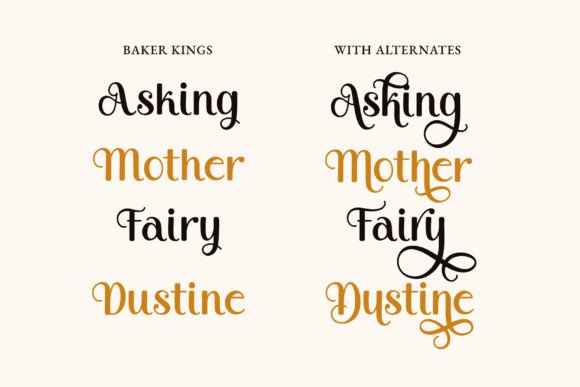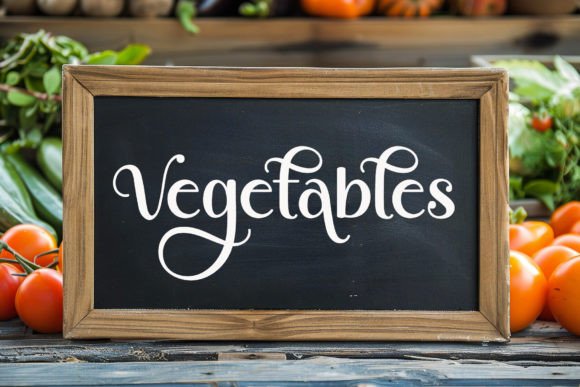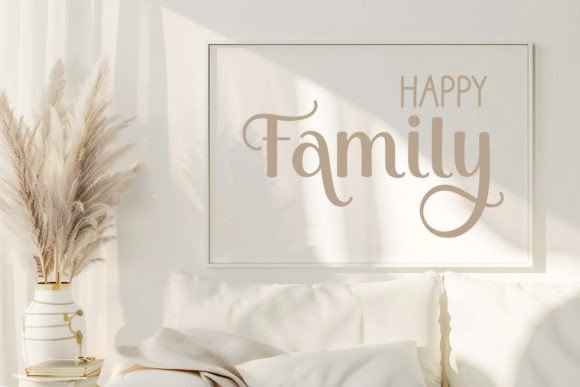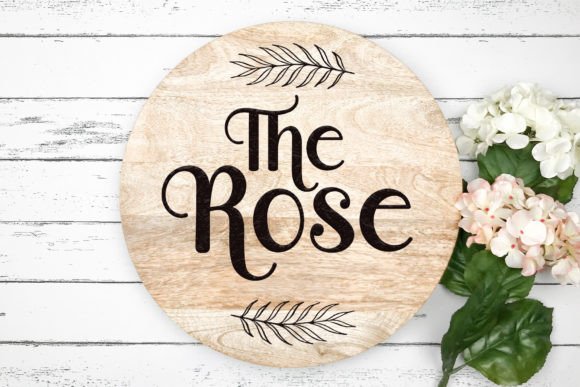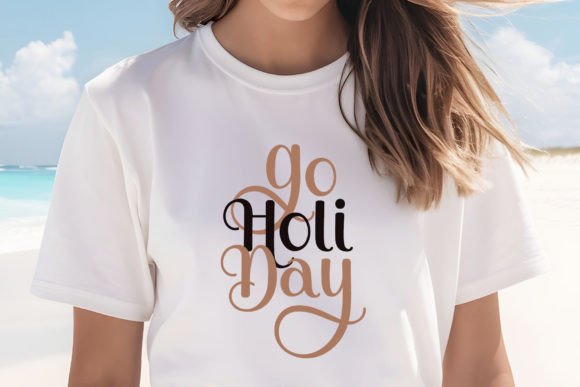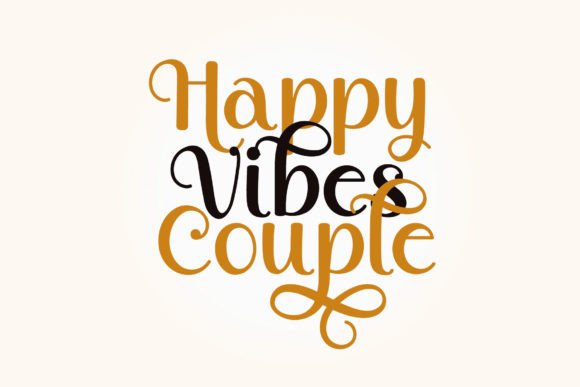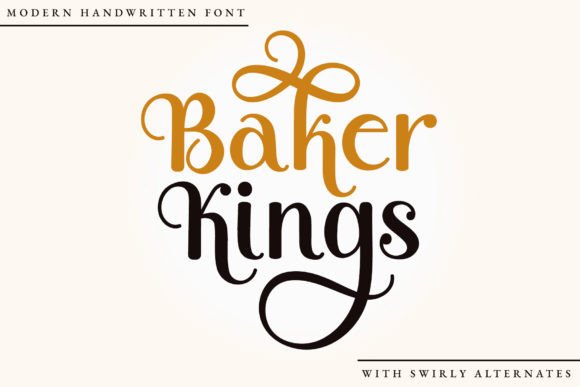
Baker Kings Font: Elevate Your Designs with Elegance and Sophistication
In the world of typography, fonts play a crucial role in conveying the tone and aesthetic of a design. For designers and crafters seeking a modern classic handwritten font that exudes elegance, femininity, and fanciness, Baker Kings Font is an exceptional choice. This beautiful font is perfect for a wide range of design projects, including wedding invitations, sublimation designs, posters, greeting cards, birthday cards, t-shirt designs, farmhouse designs, and more.
What Makes Baker Kings Font Stand Out?
Baker Kings Font boasts an elegant style with a unique blend of modern and classic elements. Its handwritten design gives it a personal and intimate feel, making it ideal for projects that require a touch of sophistication and refinement. The font’s feminine and fancy vibes are sure to captivate your audience and leave a lasting impression.
Key Features of Baker Kings Font
- Modern Classic Handwritten Style: Baker Kings Font features a beautiful, modern classic handwritten style that is both elegant and refined.
- Elegant and Feminine Vibes: The font’s design exudes a sense of femininity and elegance, making it perfect for projects that require a touch of sophistication.
- Lots of Swirl Swash/Extra Glyphs: With an extensive range of swirl swash and extra glyphs, Baker Kings Font offers designers a wide range of options for customizing their designs.
- Versatile and Multifaceted: This font is suitable for a wide range of design projects, from wedding invitations and sublimation designs to posters, greeting cards, and more.
Baker Kings Font is an incredibly versatile font that can be used for various design projects. Here are some ideas to get you started:
- Wedding Invitations: Create beautiful and elegant wedding invitations that set the tone for the special day.
- Sublimation Designs: Use Baker Kings Font to create stunning sublimation designs for products such as mugs, tumblers, and phone cases.
- Posters and Flyers: Design eye-catching posters and flyers that grab attention and communicate your message effectively.
- Greeting Cards and Birthday Cards: Create personalized and heartfelt greeting cards and birthday cards that make your loved ones feel special.
- T-Shirt Designs: Design unique and stylish t-shirt designs that make a statement.
- Farmhouse Designs: Use Baker Kings Font to create charming farmhouse designs for signs, labels, and more.
Why Choose Baker Kings Font?
With so many fonts available, why choose Baker Kings Font? Here are a few compelling reasons:
- Unique and Elegant Design: Baker Kings Font features a unique and elegant design that sets it apart from other fonts.
- Highly Customizable: With lots of swirl swash and extra glyphs, you can customize your designs to suit your needs.
- Versatile and Multifaceted: This font is suitable for a wide range of design projects, making it a valuable addition to your font collection.
- Easy to Read and Understand: Baker Kings Font is easy to read and understand, making it perfect for designs that require clear communication.
In conclusion, Baker Kings Font is an exceptional choice for designers and crafters seeking a modern classic handwritten font with elegant, feminine, and fancy vibes. Its versatility, customizability, and unique design make it perfect for a wide range of design projects. Whether you’re creating wedding invitations, sublimation designs, posters, or t-shirt designs, Baker Kings Font is sure to elevate your designs and leave a lasting impression.